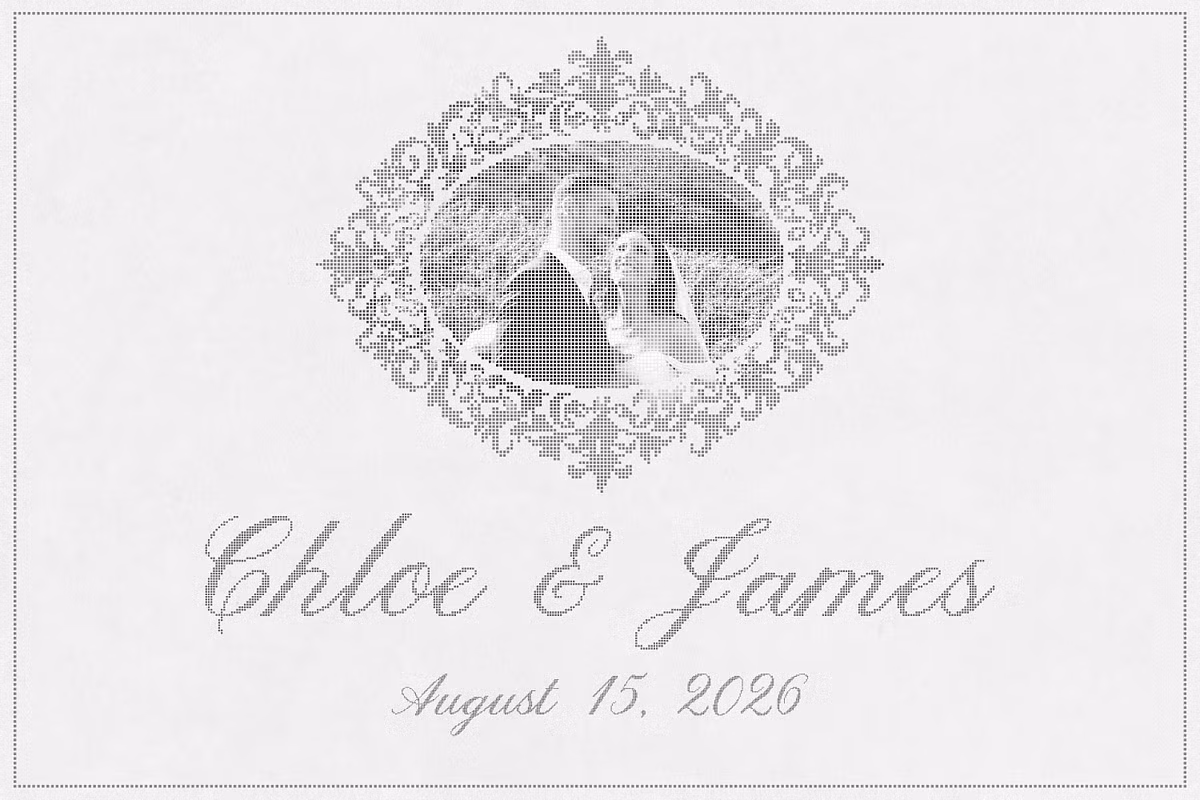
Fine Love Handcrafted Pixel Font: Romantic Typeface for Timeless Design
The Fine Love font is a made typeface that captures the feeling of romance and nostalgia. I see the Fine Love font. I feel a hug. The Fine Love font uses hand work with care. The Fine Love font gets ideas from embroidery and the soft feel of crochet. The Fine Love font has letters that feel warm and touchable. The Fine Love font mixes shapes with a pixel stitched look. The Fine Love font makes a design that looks nice and feels heartfelt. The Fine Love font has a feel. Works well, for projects that celebrate love, memory and tradition.
The design style of Fine Love sets Fine Love apart, in the world of typography. I notice that Fine Love feels hand made like a craft. Each letter looks as if a hand has gently woven it. The soft rough letterforms give a feeling of warmth and an old feeling. Fine Love works well for themes. Fine Love blends flowing shapes with the pixel look. Fine Love nods to the stitch work.
I think Fine Love’s design can match looks from bohemian, to chic. I see Fine Love’s design has the look that gives a balance between class and casual feel so Fine Love’s design works, for many creative projects. You may design a wedding invitation. You may design a keepsake. The Fine Love design style makes your message feel warm and polished.
Fine Love offers a large character set. The Fine Love character set serves design needs. The Fine Love character set includes letters, lowercase letters, numbers and a few punctuation marks. Fine Love designs each character with care. Fine Love keeps the font looking the same across all text.
I like how Fine Love adds the pixel‑like stitching texture that makes any design look more interesting. Fine Love feels nostalgic and hand made so Fine Love works well for the projects that want to feel nostalgic and hand made. The texture gives the design a feel. I use Fine Love for that look. Fine Love also works with languages. That makes Fine Love easy, for the designs that target audiences. When you use Fine Love you can create text that reaches the people from backgrounds. Fine Love still keeps the feeling that Fine Love has.
- I think wedding invitations capture the romance, with Fine Love, on the wedding stationery. Wedding invitations set the tone for the day.
- Save the Dates: Use this font to make save the date cards that show your love story. Save the Dates become personal with this font.
- Bridal Stationery: I use Bridal Stationery for the vows and the other personal touches. Fine Love adds a feel, to any design.
- Initials: Use Fine Love, in your branding. Make the monograms and initials feel personal and special.
- Branding and Packaging: I have seen businesses, in the beauty and fashion sectors use Fine Love, for logos and product packaging. Fine Love catches the eye of a clientele that values handcrafted style. Fine Love works.
Fine Love has an vintage style. Fine Love is not a font. Fine Love is a tool, for storytelling and for making connections through design. When I design with Fine Love I feel a connection, to the story.
When I use the Fine Love font I see that careful pairing makes the design look better. Here are some pairing suggestions you can try:
- Serif Fonts: Pair Fine Love with classic serif fonts like Playfair Display or Baskerville to create a sophisticated yet romantic look.
- Sans-serif Fonts: Pair Fine Love, with Montserrat or Lato. The pairing lets Fine Love stand out and keeps the reading clear.
- Script Fonts: For a design pair script fonts, with another script font, like Great Vibes or Pacifico. Script fonts can give the design an elegant feel.
Experiment, with the pairings. I find that the pairings give a design. The pairings let Fine Love shine as the point. The pairings also let Fine Love fit with the elements.
The Fine Love font is not a typeface. The Fine Love font celebrates romance, nostalgia and hand made design. The Fine Love font mixes embroidery style with pixel texture. The Fine Love font adds warmth and personality to any project. When you design wedding invitations, branding materials or keepsakes the Fine Love font adds beauty that fits love and tradition. I have used the Fine Love font on my wedding invites. I feel the warmth it brings.